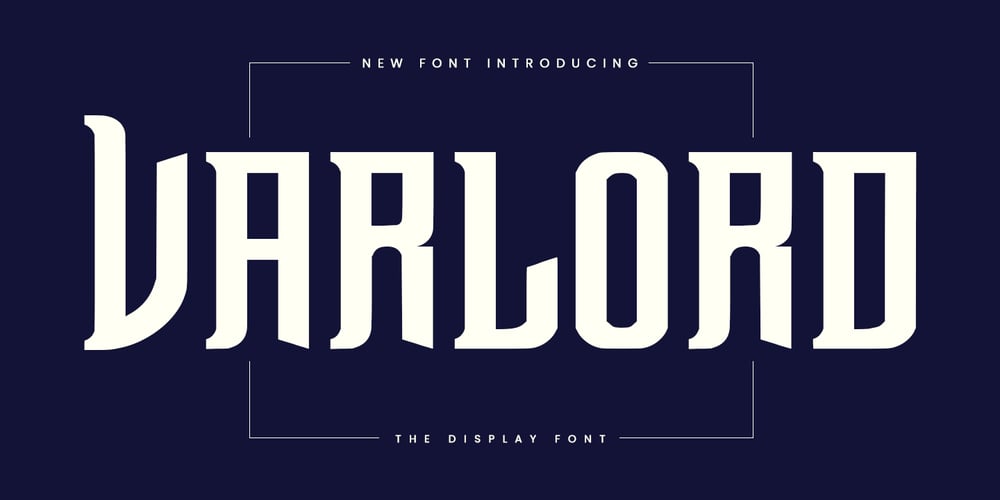
MC Varlord
MC Varlord font
MC Varlord Font Family was designed by Gilang Maulana and published by Maulana Creative. MC Varlord contains 1 styles and family package options. Varlord Display Font Vintage is a handmade Modern Victorian handlettering, which is combining modern and classic typography with some awesome alternates. Yes we back to early 1800s, bring classic touch on this decade.Thanks for use this font.Maulana Creative.